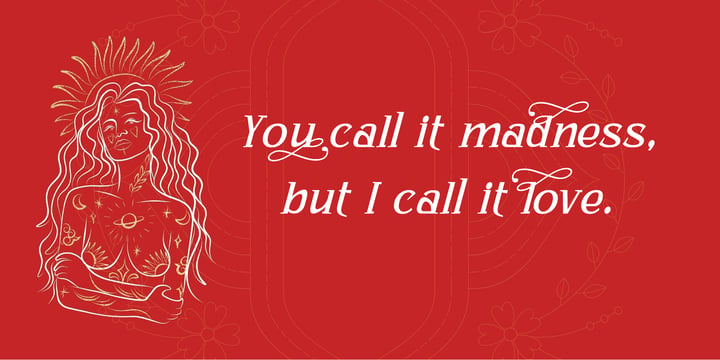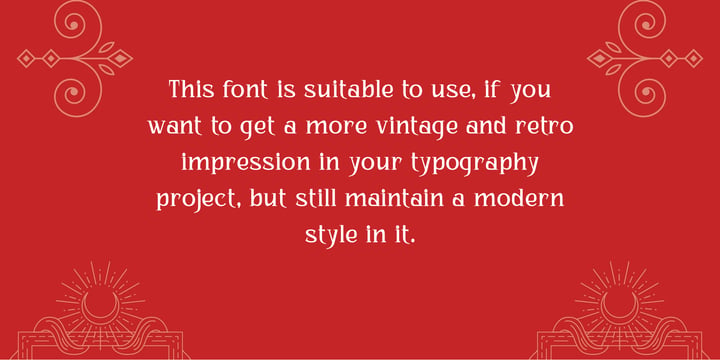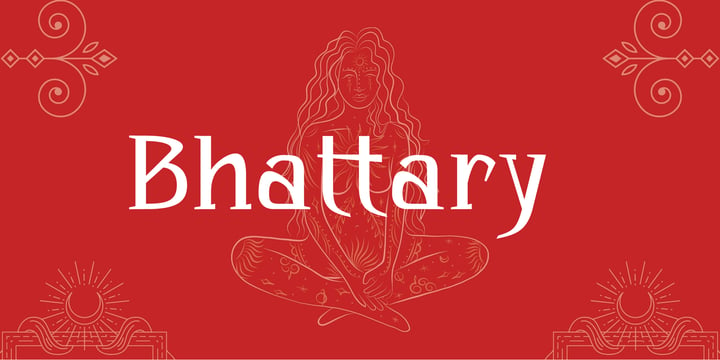
Bhatary Font Family
Bhatary Font FamilyBhatary is a Retro Vintage Serif Font. This Bhatary is suitable to use, if you want to get a more vintage and retro impression in your typography project, but still maintain a modern style in it.
Bhatary with a distinct appearance of Retro, 50’s era. the golden era. It works well in posters, CD Cover, T-shirt / merchandise design, magazine,the possibilities are endless!